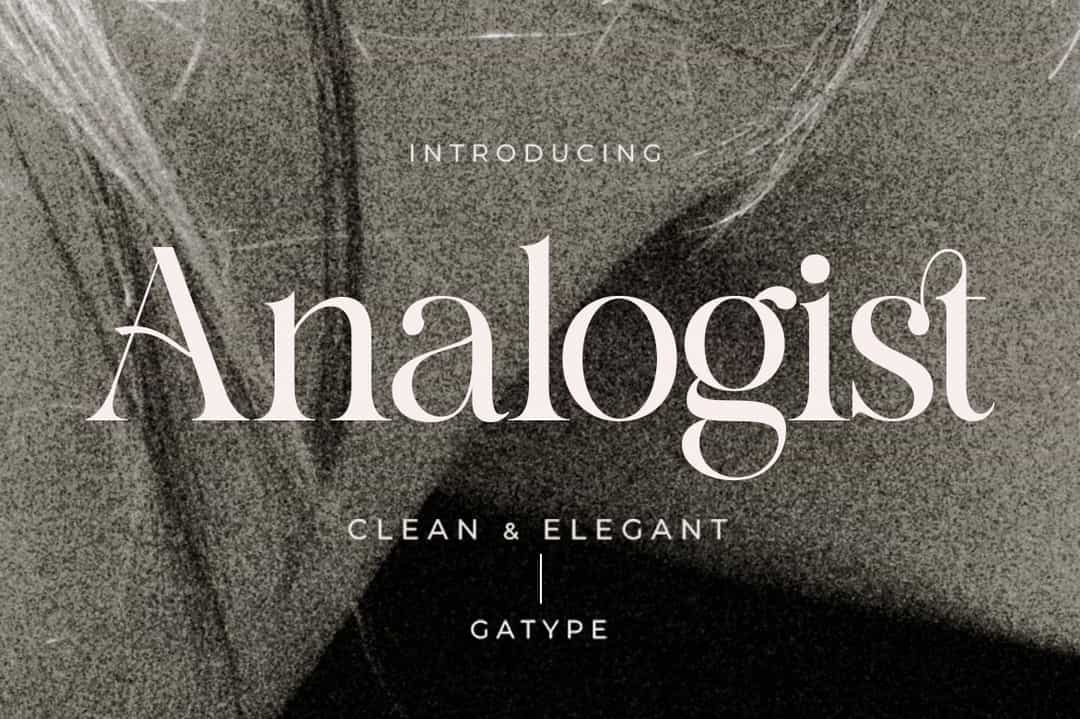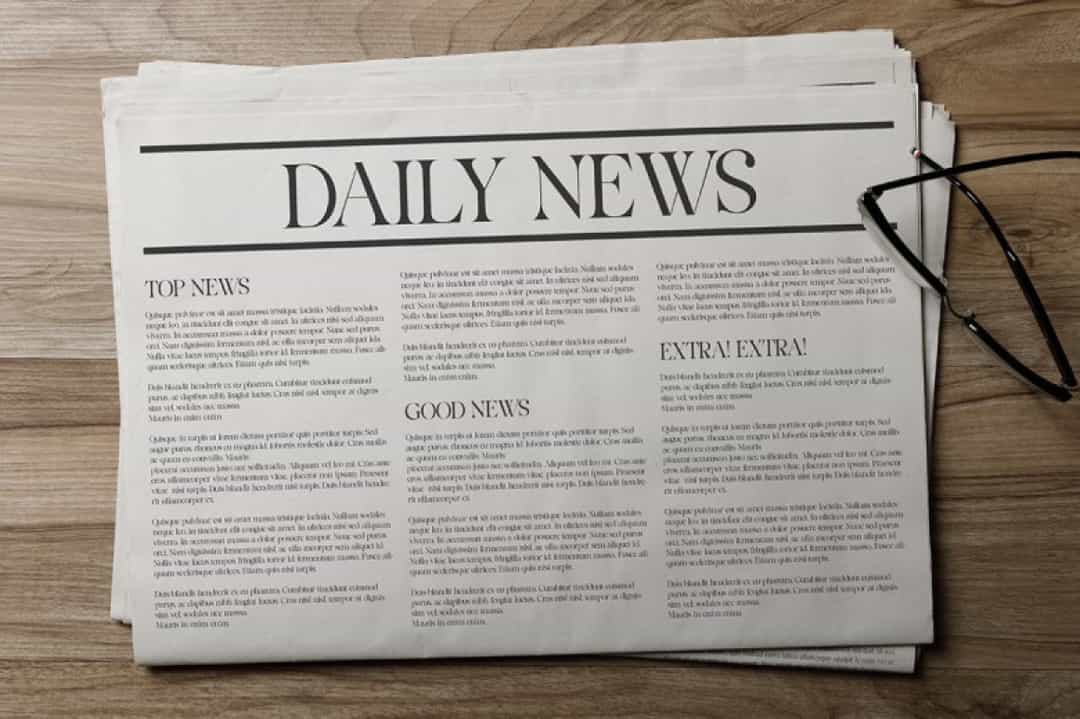
Analogist is a modern serif typeface with a distinctive style, perfect for logos, fashion and editorial branding, magazine covers, ads, T-shirt printings and cards sent during Valentine’s day! Additionally, this font can also be customized to look amazing when used across design projects such as logos, fashion editorial branding and magazine packaging designs – plus much more!